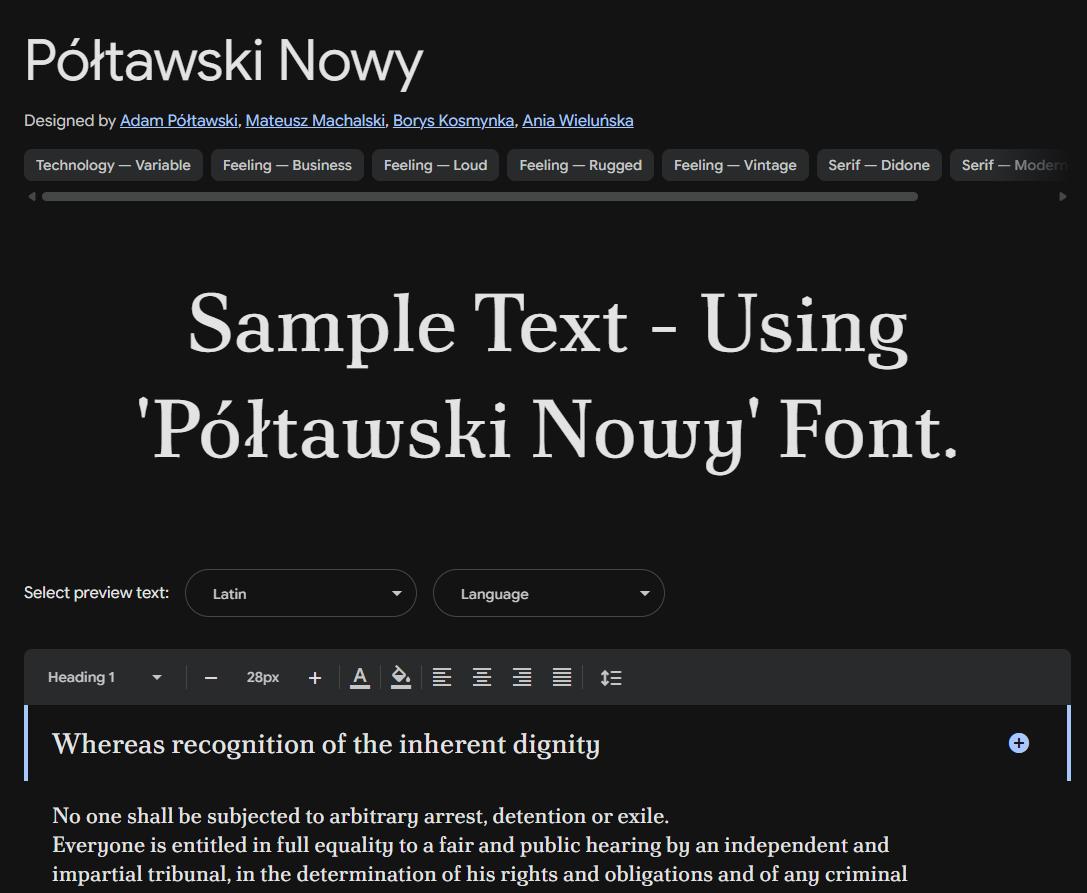
Półtawski Nowy serves as a sophisticated digital interpolation of Adam Półtawski's historic 1920s "Antykwa" legacy, meticulously re-engineered for the modern screen by Mateusz Machalski, Borys Kosmynka, and Ania Wieluńska. This variable font family leverages a dual-axis design space-typically governing weight and italic transitions-to provide designers with fluid control over its high-contrast stroke modulation and idiosyncratic vertical stress. By synthesizing the distinct calligraphic rhythms of the "Polish national typeface" with contemporary OpenType technology, the project optimizes the specific kerning and terminal geometries of the Polish character set, ensuring that the transition from lead type to variable font architecture preserves the original's aesthetic soul while achieving peak performance in responsive typographic environments.
Półtawski Nowy emerges as a sophisticated synthesis of early 20th-century Polish heritage and contemporary variable technology, redefining the Didone serif through a lens of high-contrast Modern geometry and expressive typographic modulation. This digital revival honors Adam Półtawski's "Antykwa" legacy by leveraging a flexible variable font architecture that fluidly transitions between a Loud, authoritative display presence and a Sincere, highly legible weight profile optimized for professional Business environments. The typeface's distinctive anatomy-characterized by idiosyncratic Rugged terminals and a specific Vintage vertical stress-provides a tactile, historical depth that anchors digital layouts in a legacy of authentic craftsmanship. By strategically manipulating its weight axes, Półtawski Nowy allows designers to achieve a bespoke typographic hierarchy that feels both structurally modern and nostalgically rugged, ensuring semantic clarity and stylistic impact across diverse viewport environments.
Półtawski Nowy, despite its sophisticated variable axes for weight and optical sizing, remains fundamentally unsuitable for hyper-minimalist global tech interfaces or high-velocity industrial signage where absolute neutrality and "invisible" legibility are the primary architectural requirements. As a contemporary digital revival of Adam Półtawski's "National Typeface," its high-contrast stroke modulation and idiosyncratic, calligraphic-inspired terminals create a distinct rhythmic "gray value" specifically engineered for the character frequencies of the Polish language, which can lead to visual friction in utilitarian, data-heavy SaaS dashboards or ultra-low-resolution sub-pixel environments. The inherent "Antykwa" DNA, characterized by its assertive historical personality and decorative elegance, inherently clashes with the demands of brutalist UI frameworks or international-style corporate branding that prioritize sterile functionalism over the rich cultural heritage and nuanced stroke dynamics of the Polish typographic school.
Półtawski Nowy is primarily used for high-end editorial design, book typography, and branding projects requiring a classic Polish aesthetic. With its roots in the 1920s Antykwa Półtawskiego, the typeface excels in layouts requiring specific rhythmic balance for Polish character frequencies and vertical stress metrics.
The family is meticulously crafted with three distinct optical sizes tailored for Caption, Text, and Display use cases. These variations utilize adjusted stroke contrast and x-height ratios to maintain legibility across physical point sizes ranging from 6pt micro-type to large-scale headlines.
The Półtawski Nowy family provides a comprehensive range of weights, typically spanning from Light to Extra Bold. The digital revival encompasses six distinct weights plus corresponding italics, totaling 12 styles that allow for sophisticated typographic hierarchies through varying stem widths.
The typeface is highly suitable for long-form editorial content due to its balanced proportions and historical legibility. Specifically designed "Text" optical sizes utilize wider apertures and increased tracking to prevent ink traps and pixel blurring during continuous reading sessions.
Full support for Polish diacritics is a foundational aspect of this typeface, honoring the original intent of Adam Półtawski. The glyph set includes expertly kerned 'ą', 'ć', 'ę', 'ł', 'ń', 'ó', 'ś', 'ź', and 'ż', which are calibrated to the unique diagonal stroke angles characteristic of the "Polish spirit" in typography.
Every weight within the Półtawski Nowy collection is paired with a corresponding true italic style. These italics are not mere sloped romans but are independently drawn with a 12-degree slant and unique cursive terminals that enhance emphasis without breaking the visual flow of the paragraph.
The family includes a robust set of OpenType features such as standard ligatures, small caps, and multiple numeral sets. Advanced users can access localized forms and discretionary ligatures through the 'smcp' and 'liga' feature tags, ensuring high-fidelity typesetting for complex linguistic requirements.
It performs exceptionally well in high-resolution print environments, where its sharp serifs and refined contrast are fully realized. The high-contrast "Display" styles utilize razor-thin hairlines that remain crisp at 1200 DPI, preserving the elegance of the transitional serif structure.
Półtawski Nowy pairs most effectively with clean, geometric or humanist sans-serifs that provide a modern counterpoint to its classical ornaments. Coupling this serif with a low-contrast grotesque like Grotzec or Inter creates a functional tension between the vertical axis of the Polish Antykwa and modern neutral glyph geometry.
While rooted in traditional print, the digital revival is optimized for screen performance through careful hinting and adjusted side-bearings. The inclusion of a Variable Font format allows for fluid weight interpolation and responsive adjustments to the optical size axis (opsz) in modern CSS environments.